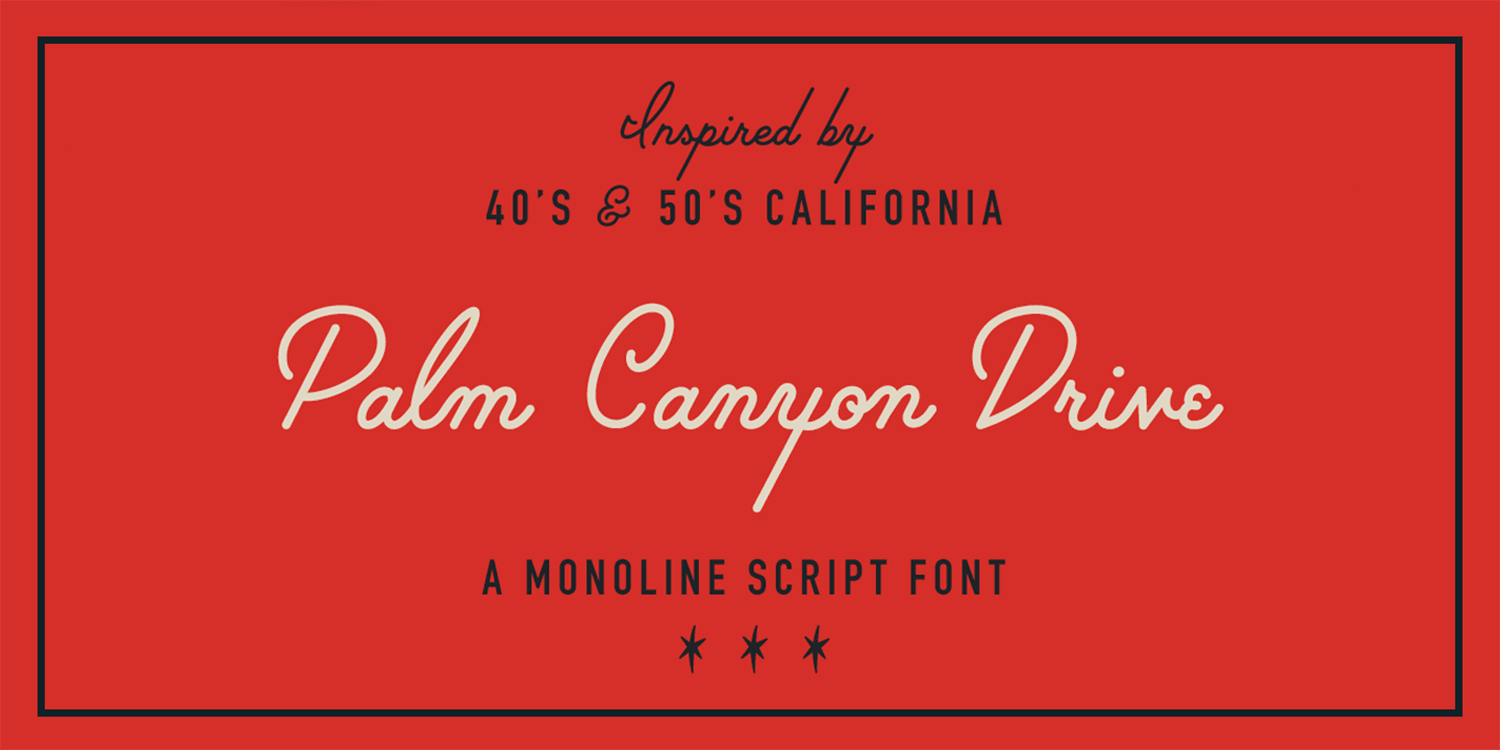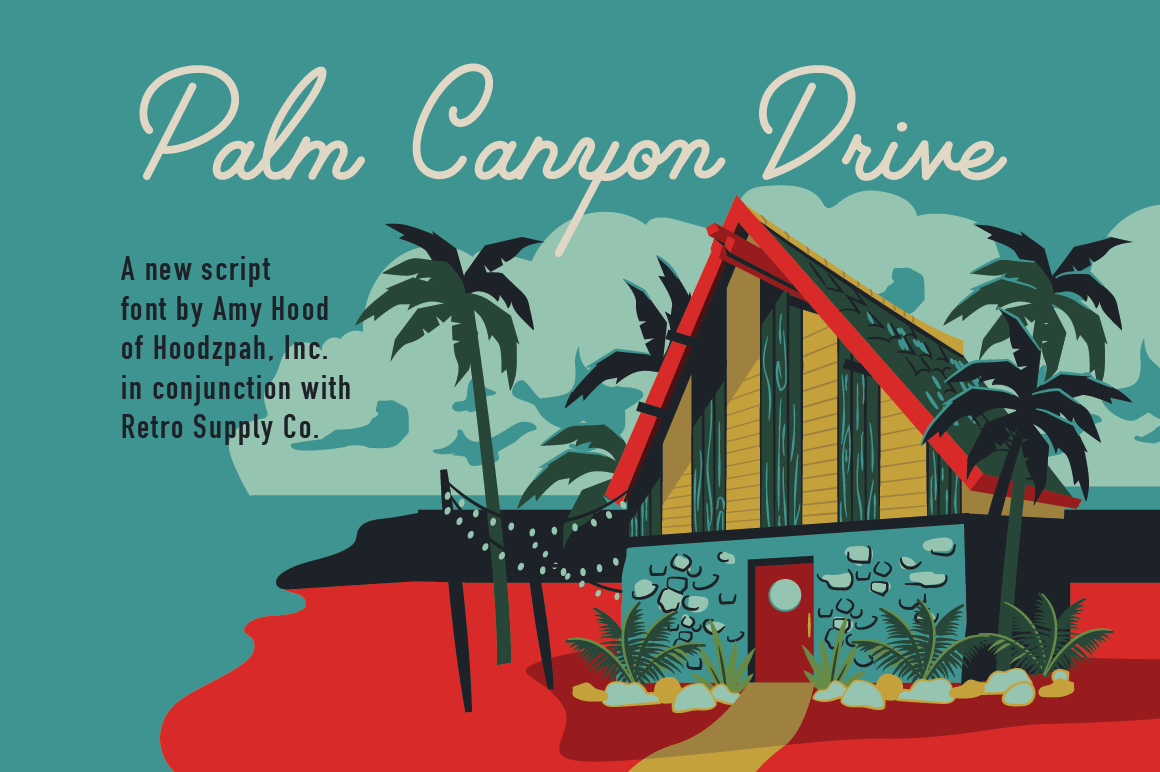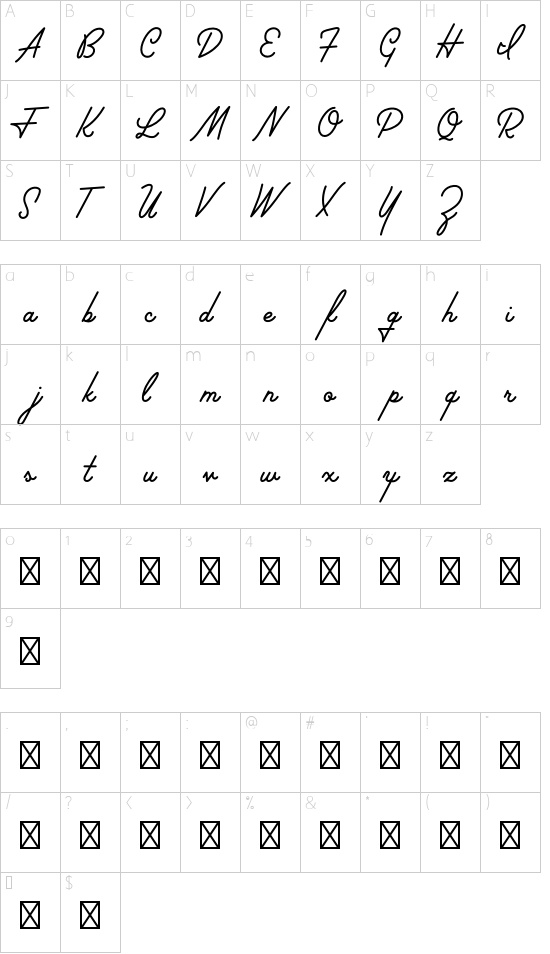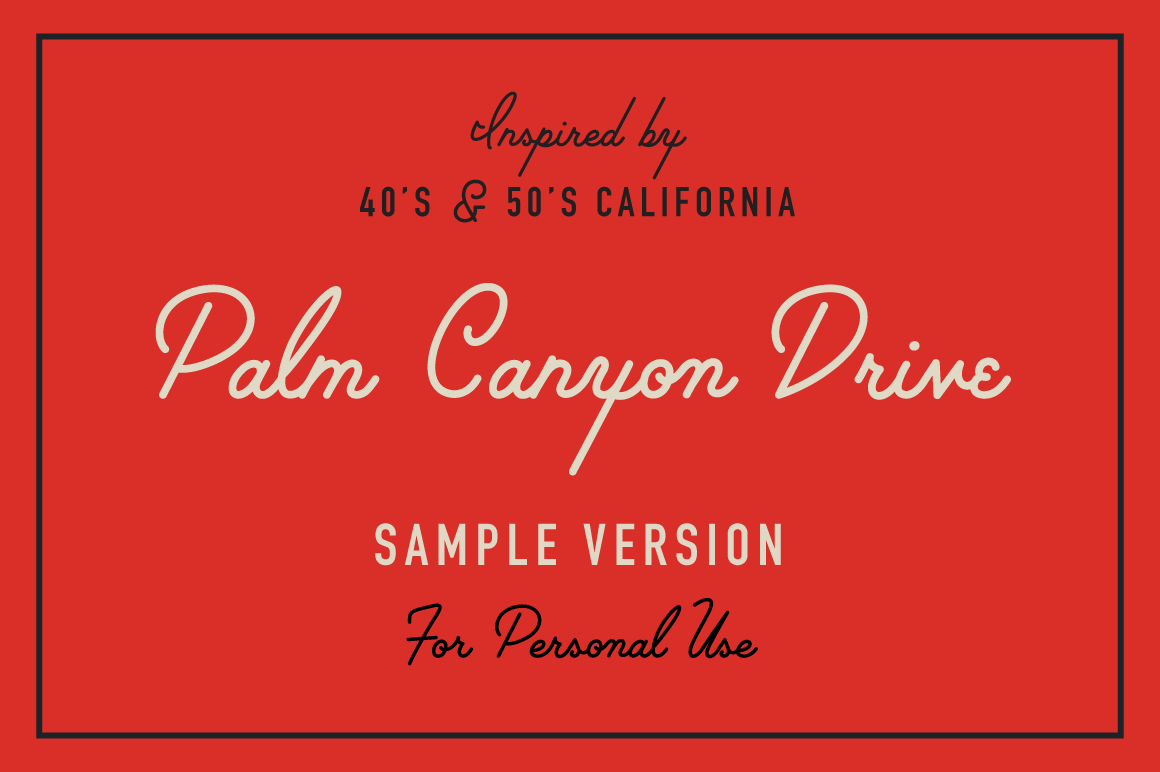
Palm canyon drive is a monoline script inspired by retro matchbook covers, travel postcards, tiki bars and…. In conjunction with retrosupply co.
Palm canyon drive font free trial. Palm canyon drive is a custom monoline script typeface we designed for retro supply co. Palm canyon drive is a monoline script inspired by retro matchbook covers, travel postcards, tiki bars and hollywood. A monoline script inspired by 40's and 50's california.
It’s inspired by tikki bars & hollywood, travel postcards, and retro matchbook covers. This monoline font has 6 styles and along with the retro and dingbat style. Palm canyon drive was designed by amy hood and published by retrosupply co.
It was inspired by retro travel postcards, matchbook covers, tikki bars, and hollywood style. Here's your free copy of palm canyon drive. Be sure to check out the glyphs panel in illustrator to check out all the extra catch words.
Palm canyon drive font families. Want to use this font in commercial work? Designed by amy hood, palm canyon drive is a dingbat, retro and script font family.
Palm canyon drive is the perfect titling font to complement text faces in magazines, logotypes, etc. Palm canyon drive is a monoline script. Use the selector above to match other fonts in the family.
Has worked with all sorts of awesome clients including google, matchbox, the history channel and more. It comes in 3 weights. The typeface is inspired by retro matchbook covers, travel postcards, tiki bars and desert retreats for hollywood stars.
With a classy yet unpretentious tone palm canyon drive is as comfortable on a tiki bar matchbook cover as it is on a hollywood movie poster. So, if you're in need of a font for your current project or are building up a. It is classy but not pretentious, a good choice if you want something comfortable that still seems high class.